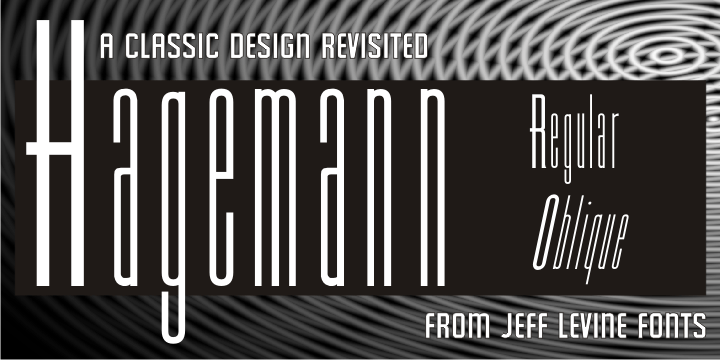
Hagemann
One of the most enduring type styles of the Art Deco era is Huxley Vertical. Its clean lines and stylish appeal have transcended changing times and tastes. Many typefaces have been inspired by the original, including the model used to create this font.
The design was found in the book "Lettering and Alphabets", first published in 1946 by J. ALbert Cavanagh. By re-drawing it from scratch, the missing numerals, punctuation, special characters and accents were added.
Hagemann JNL and its oblique version are named in honor of one of Jeff Levine's friends within the type design community – Michael Hagemann of Font Mesa.